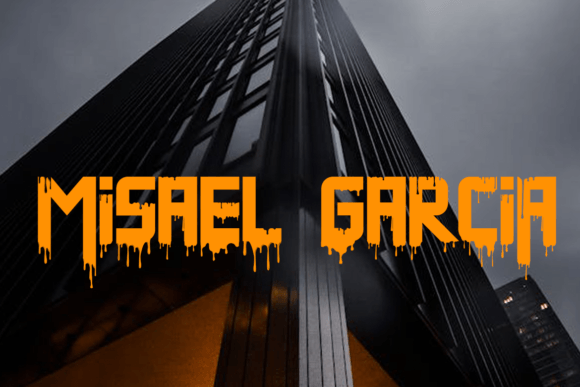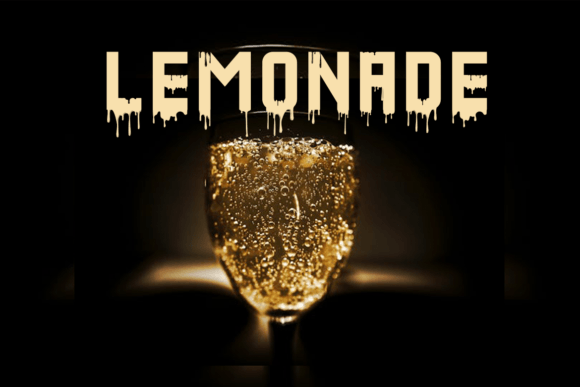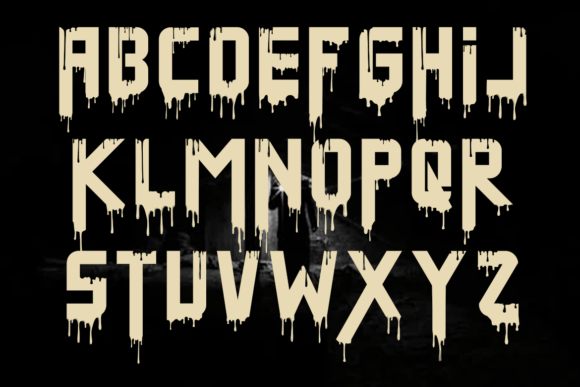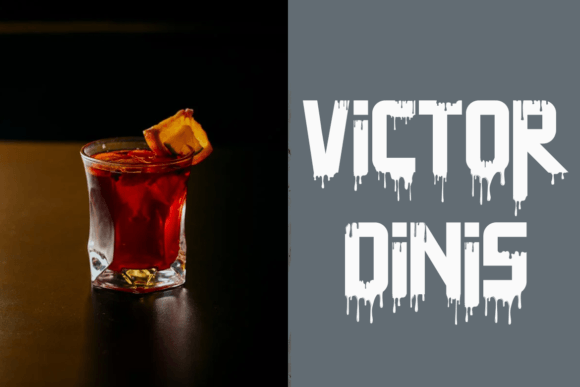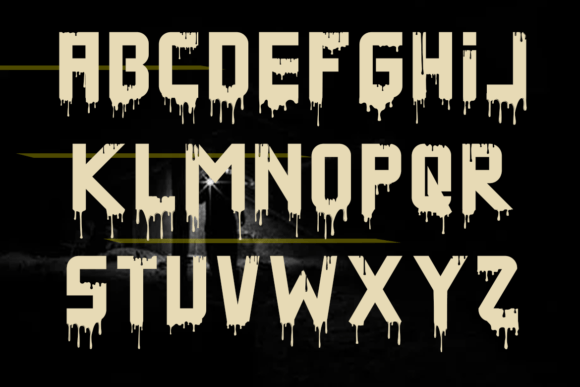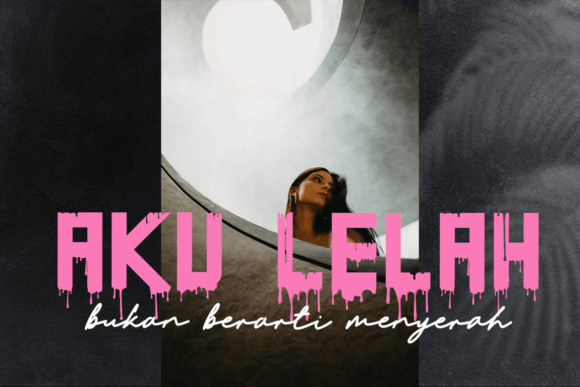
Dhot Sigar Font: The Ultimate Modern Display Font for Designers
In the world of typography, fonts play a crucial role in conveying the tone and personality of a design. For designers and crafters looking for a modern, cool, and bold display font, Dhot Sigar Font is an excellent choice. This font is perfect for creating stunning visuals that require a futuristic touch. In this article, we’ll explore the features and benefits of Dhot Sigar Font and how it can elevate your designs.
What is Dhot Sigar Font?
Dhot Sigar Font is a modern display font designed to make a statement. Its bold and sleek design makes it ideal for use in various design projects, including magazines, photography, banners, posters, covers, logos, web designs, and more. This font is perfect for designers who want to add a touch of modernity and futurism to their work.
Key Features of Dhot Sigar Font
- Modern and Bold Design: Dhot Sigar Font boasts a modern and bold design that is sure to grab attention.
- Versatile: This font is versatile and can be used in various design projects, from print to digital.
- Easy to Read: Despite its bold design, Dhot Sigar Font is easy to read, making it perfect for use in body text and headlines.
- High-Quality: Dhot Sigar Font is a high-quality font that is designed to deliver exceptional results.
Benefits of Using Dhot Sigar Font
Using Dhot Sigar Font in your designs comes with several benefits. Here are a few:
- Stand Out from the Crowd: With Dhot Sigar Font, you can create designs that stand out from the crowd and grab attention.
- Professional Look: This font gives your designs a professional look that is perfect for businesses and brands.
- Easy to Pair: Dhot Sigar Font is easy to pair with other fonts, making it versatile and flexible.
- Supports Multiple Languages: This font supports multiple languages, making it a great choice for designers who work with international clients.
Use Cases for Dhot Sigar Font
Dhot Sigar Font is a versatile font that can be used in various design projects. Here are some use cases:
- Magazines and Photography: Use Dhot Sigar Font to create stunning magazine covers and photography titles.
- Banners and Posters: This font is perfect for creating eye-catching banners and posters.
- Logos and Branding: Dhot Sigar Font can be used to create modern and bold logos that make a statement.
- Web Designs: Use this font to create modern and responsive web designs.
- Fashion and Business Cards: Dhot Sigar Font is perfect for creating stylish fashion designs and business cards.
Tips for Using Dhot Sigar Font
Here are some tips for using Dhot Sigar Font:
- Use it Boldly: Dhot Sigar Font is designed to be used boldly, so don’t be afraid to experiment with different sizes and weights.
- Pair it with Other Fonts: This font pairs well with other fonts, so experiment with different combinations to find the perfect match.
- Use it for Headlines: Dhot Sigar Font is perfect for use in headlines and titles, where its bold design can make a statement.
Dhot Sigar Font is a modern, cool, and bold display font that is perfect for designers and crafters looking to add a futuristic touch to their designs. With its versatile design, ease of use, and high-quality output, this font is sure to become a staple in your design toolkit. Whether you’re creating magazines, photography titles, banners, posters, logos, web designs, or business cards, Dhot Sigar Font is an excellent choice.